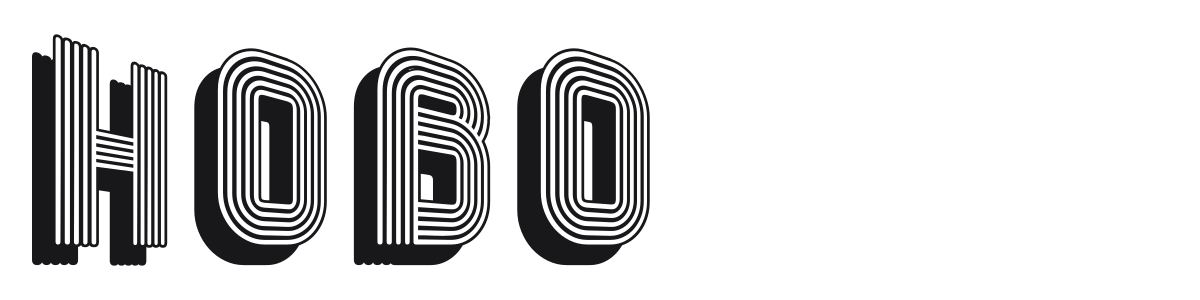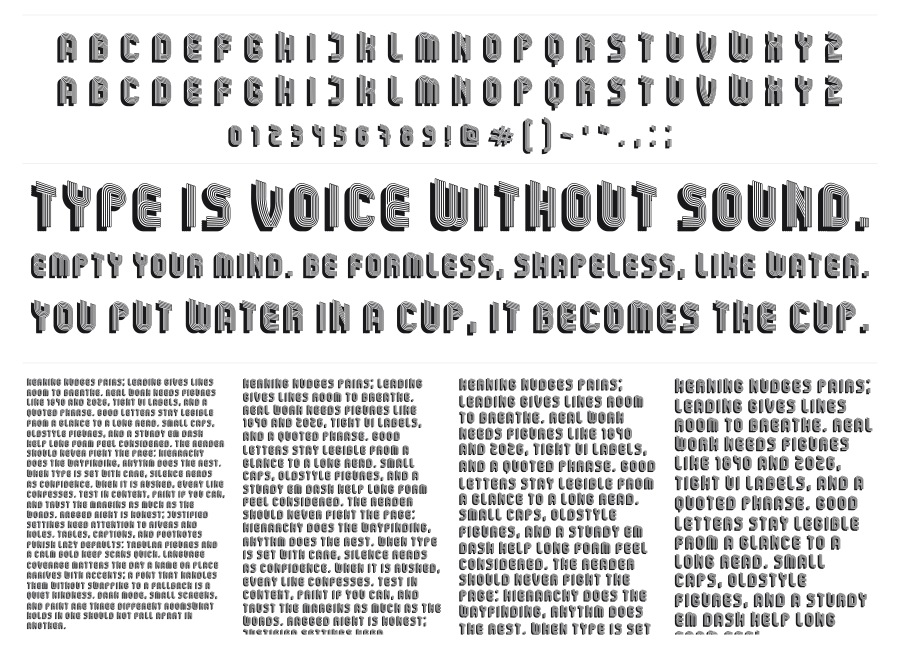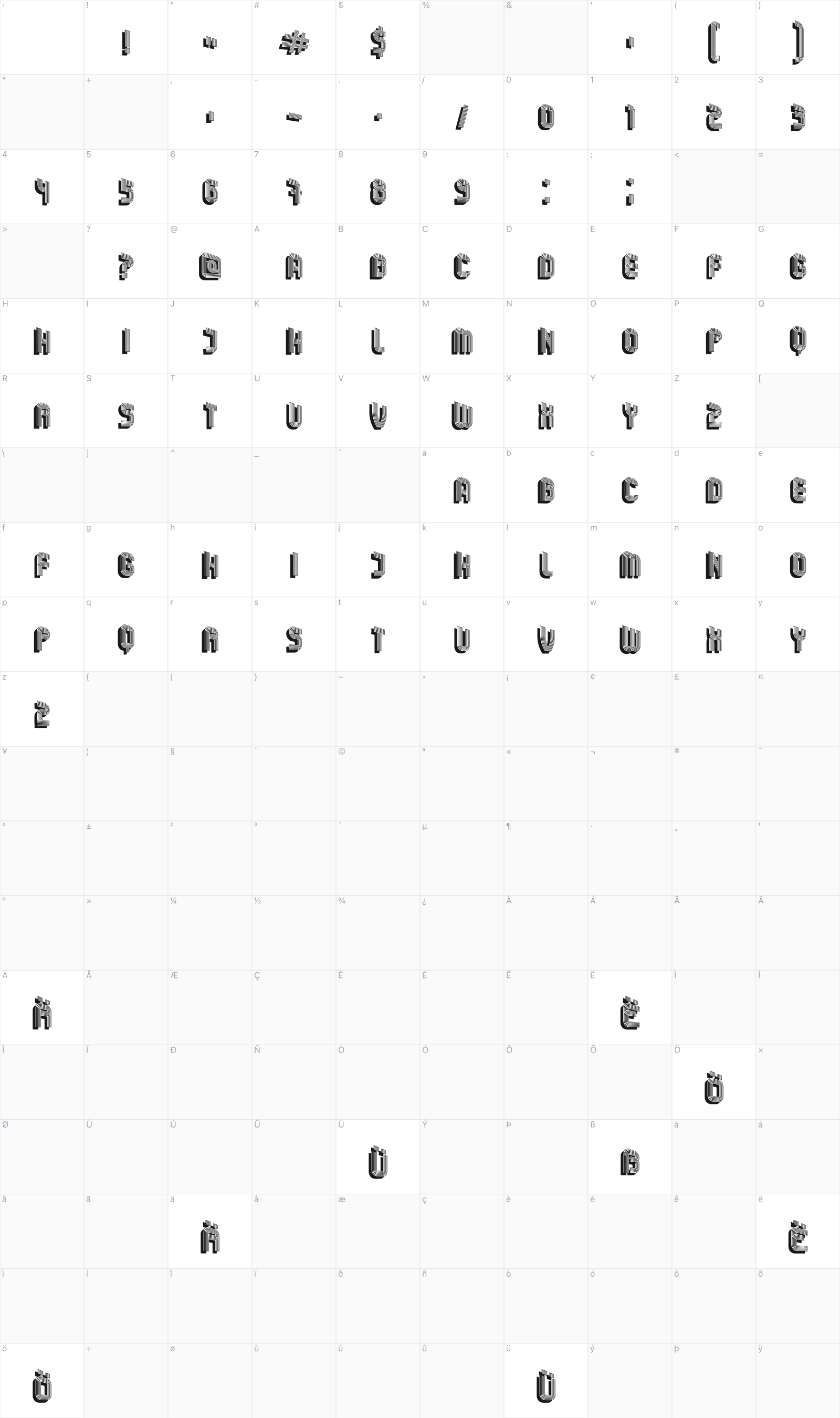
Hobo
Hobo is a bold condensed display font built entirely from parallel inline stripes that pack each character with retro energy. The rounded corners and heavy weight give it a distinctly 1970s groovy warmth, somewhere between disco-era signage and psychedelic poster art. It commands attention at large sizes and works best where you want a single word or short phrase to feel loud and vintage.